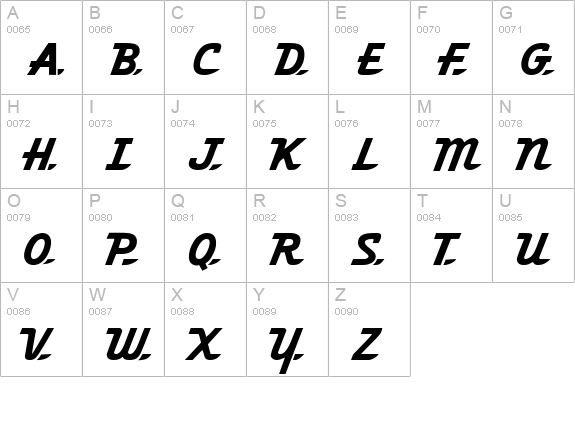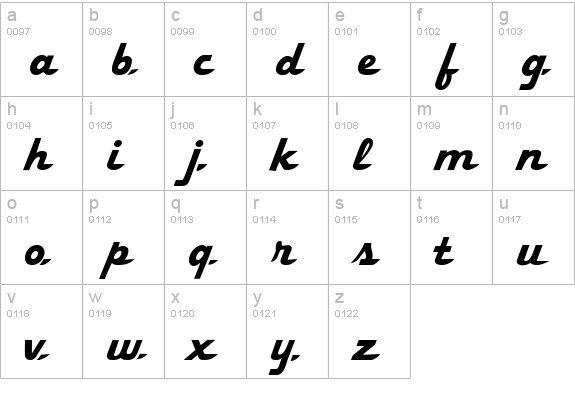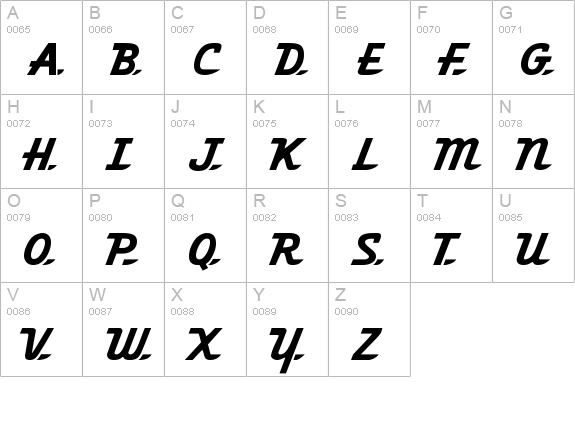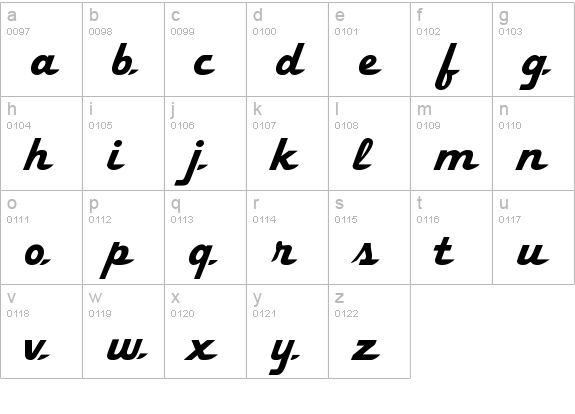
Ol'54 Font Details
Ol'54 font is a charming and versatile typeface that exudes a nostalgic vintage feel reminiscent of 1950s Americana. With its bold yet elegant letterforms and retro flair, Ol'54 is perfect for adding a touch of classic sophistication to your designs. Whether you're working on a poster, logo, packaging, or any other creative project, this font will definitely make a statement. Best of all, Ol'54 font is completely free to download at FontsMarket.com. So, why wait? Give your designs that timeless retro vibe with Ol'54 font today!